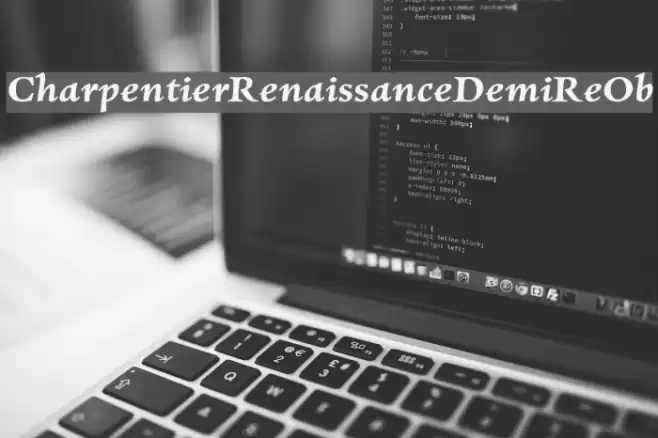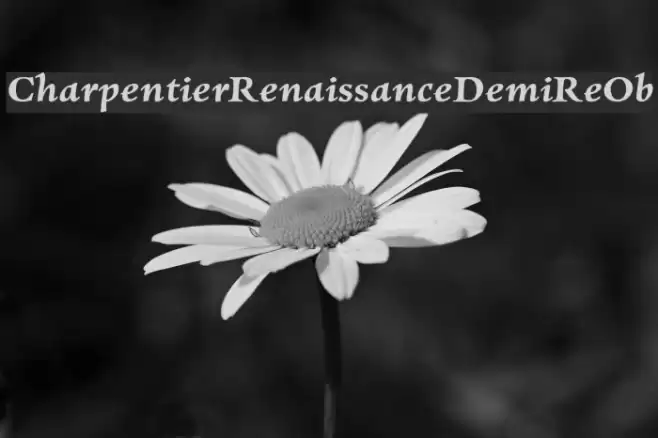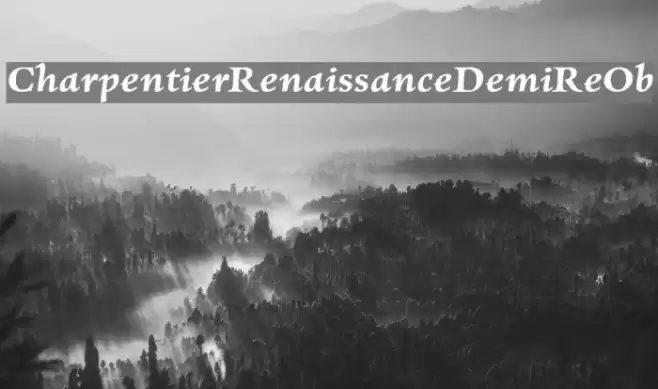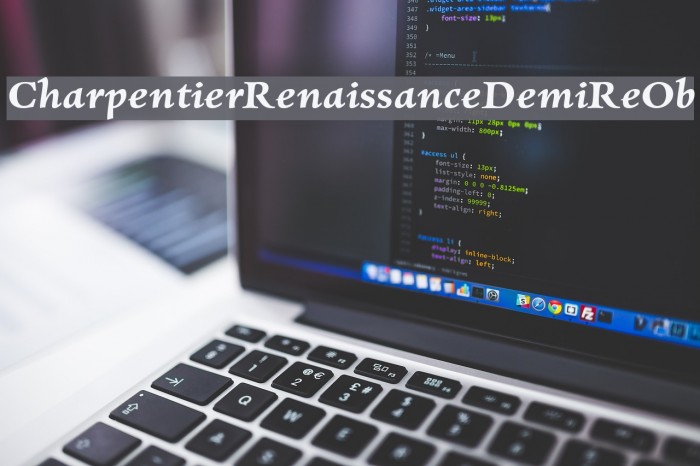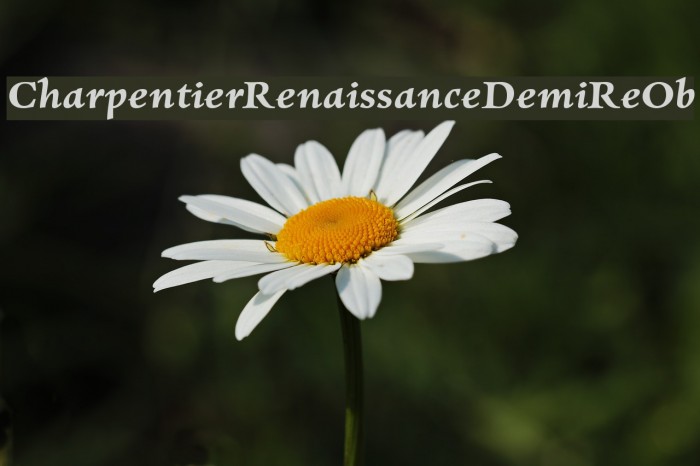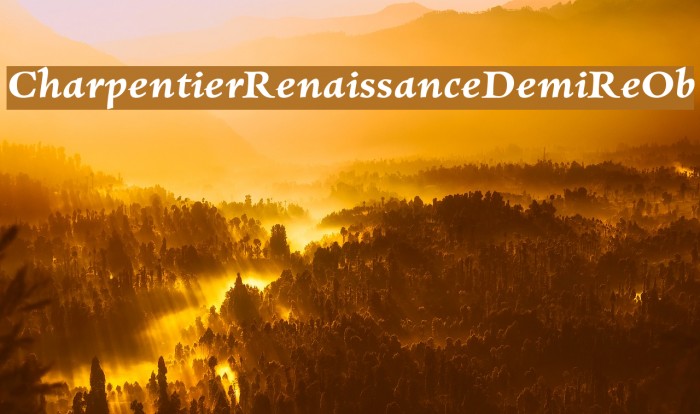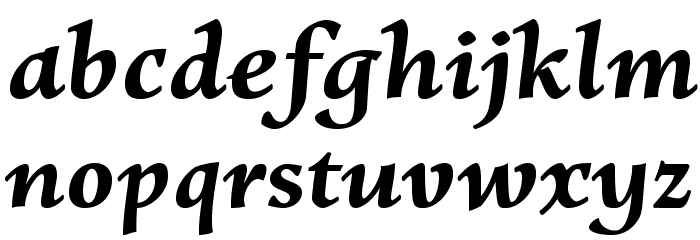
CharpentierRenaissanceDemiRe-Ob Font
CharpentierRenaissanceDemiRe-Ob Description
This font exhibits a classic and elegant style, reminiscent of Renaissance calligraphy. The uppercase letters are bold and slightly condensed, with a subtle flair that adds a touch of sophistication. The lowercase letters maintain a consistent flow, with gentle curves and a slight slant that suggests movement and grace. The overall design is balanced, with a medium contrast between thick and thin strokes, giving it a refined appearance. This font is well-suited for projects that require a historical or artistic touch, such as invitations, certificates, or branding for luxury products.
A classic, elegant font with Renaissance calligraphy influences and medium contrast from Uncategorized fonts.
- Proposed Projects: Ideal for invitations, certificates, luxury branding, and artistic projects.
- Overall Style: Classic